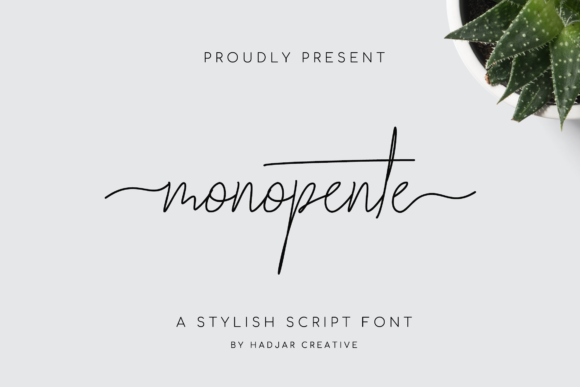
Embark on a typographic odyssey with Monopente, the enchanting script font that will ignite your creative spirit. Designed by the talented foundry hadjarcreative, Monopente is a symphony of flowing lines and graceful curves, a visual masterpiece that will elevate your designs to new heights.
Picture this: a handwritten quote, immortalized in the elegant embrace of Monopente, adorns your social media post, captivating your audience with its ethereal beauty. Or, envision your brand logo, infused with the timeless charm of Monopente, leaving an unforgettable impression on your clientele. From heartfelt letters to awe-inspiring invitations, Monopente is the perfect choice for adding a touch of sophistication and allure to your creative projects.
With Monopente, you'll discover a font that is as versatile as it is captivating. Whether you're a seasoned designer or just starting your creative journey, Monopente will effortlessly adapt to your artistic vision, enhancing your designs with its timeless appeal. Its PUA encoding opens up a world of possibilities, allowing you to effortlessly access a treasure trove of glyphs and swashes, adding an extra layer of depth and creativity to your projects.
But Monopente is more than just a font; it's an experience. Immerse yourself in the world of Monopente and let your imagination soar. Imagine the endless possibilities that await you, from creating stunning logos and branding materials to designing eye-catching social media posts and invitations that will leave a lasting impression. With Monopente, your creativity knows no bounds.
So why settle for ordinary when you can embrace the extraordinary? Choose Monopente today and unlock a world of typographic possibilities. Let your designs shine with the elegance and charm of Monopente, and embark on a creative journey that will leave you inspired and fulfilled. Embrace the beauty of Monopente and elevate your designs to new heights.